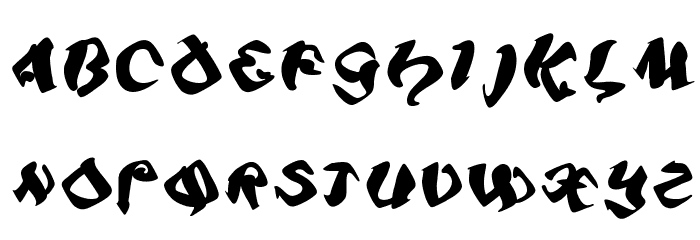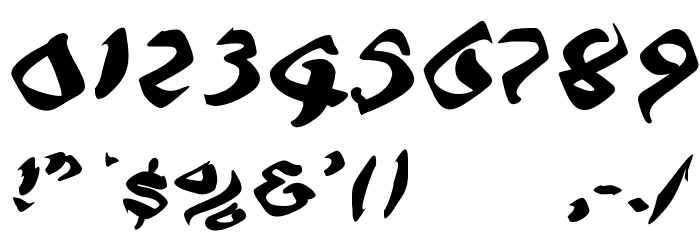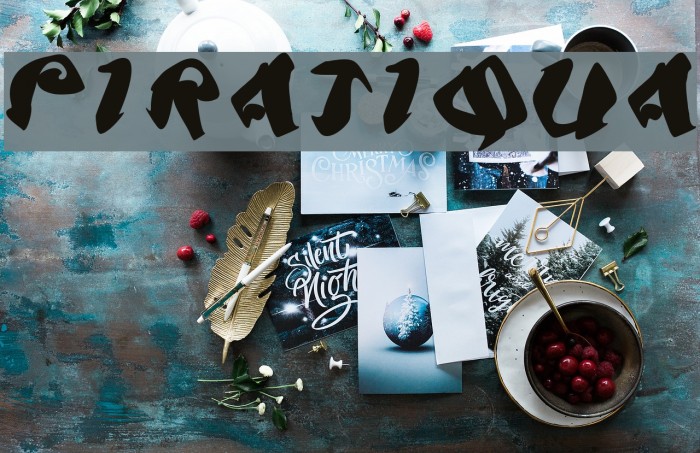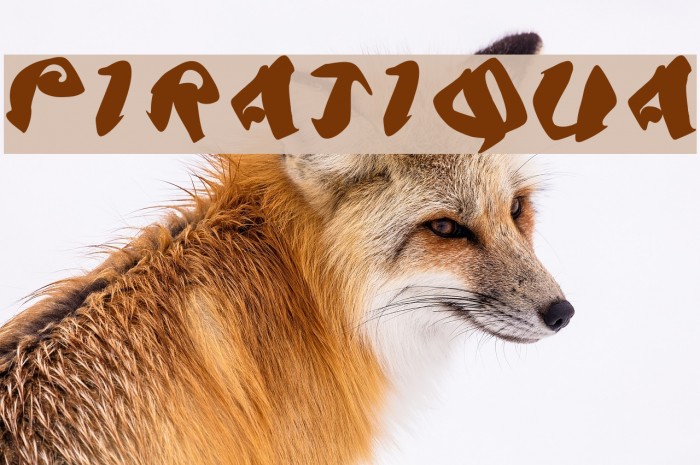
Piratiqua Font
This font features a bold and dynamic style with a strong presence, reminiscent of traditional calligraphy with a modern twist. The characters are crafted with sharp, angular strokes that give a sense of movement and energy. The uppercase and lowercase letters maintain a consistent style, with unique flourishes that add character and flair. The numbers and special characters are equally bold, ensuring they stand out in any design. This font is ideal for projects that require a dramatic and impactful visual element.
A bold, calligraphic font with dynamic, angular strokes.
- Proposed Projects: Ideal for branding, posters, and headlines that require a dramatic and impactful style.